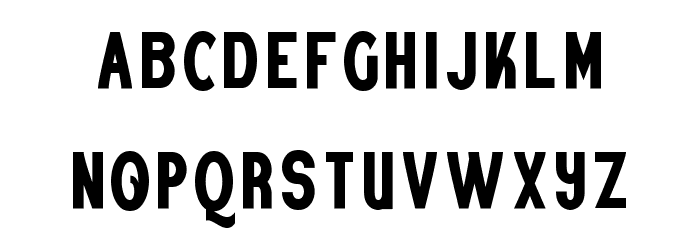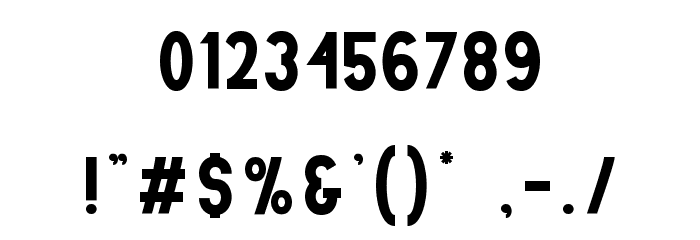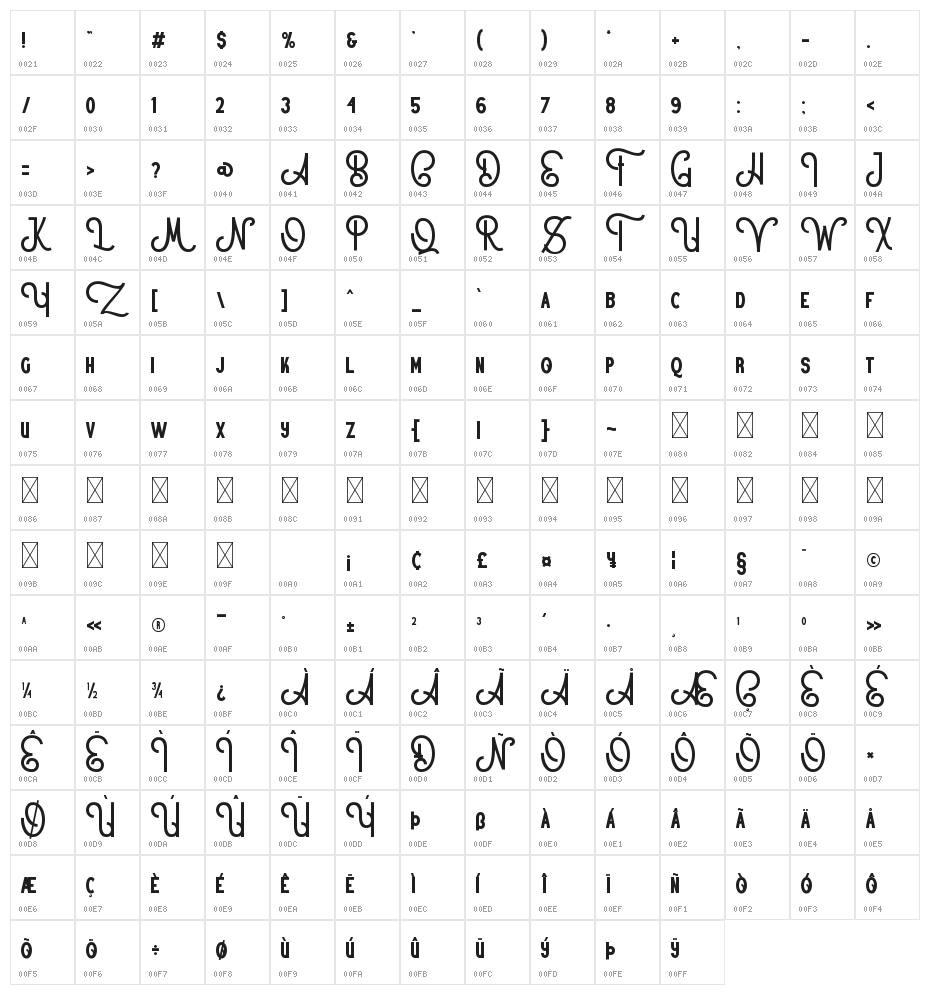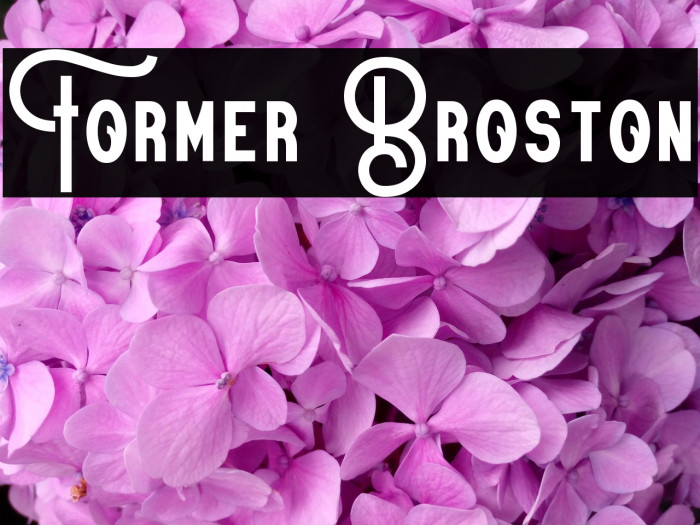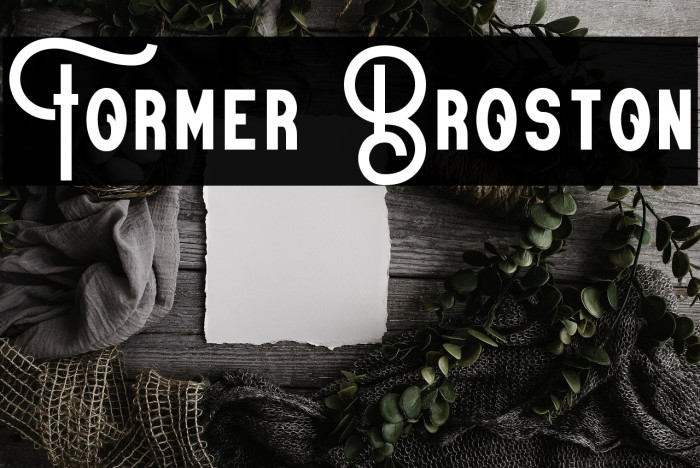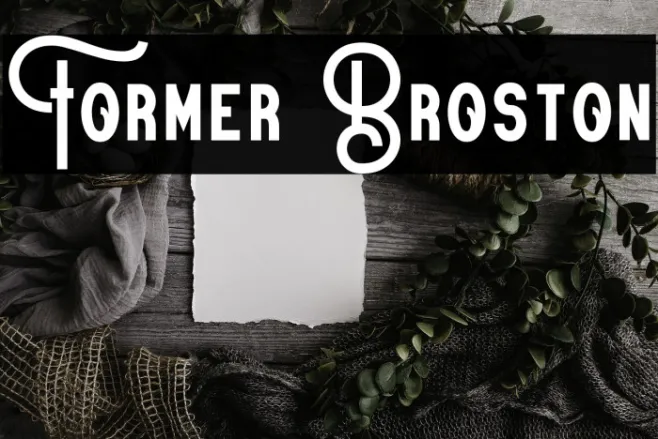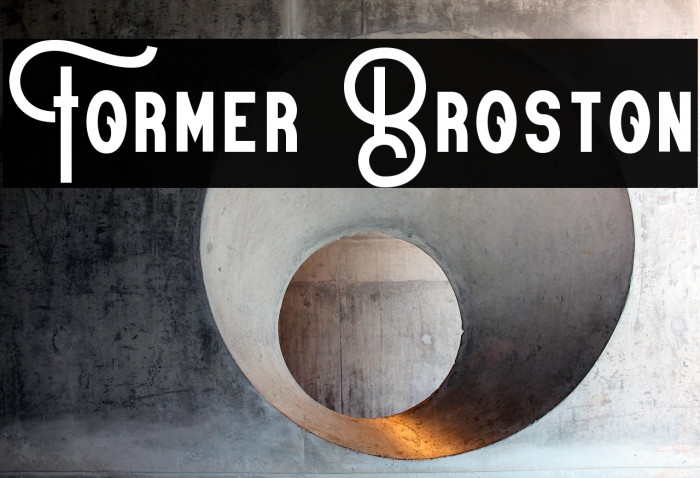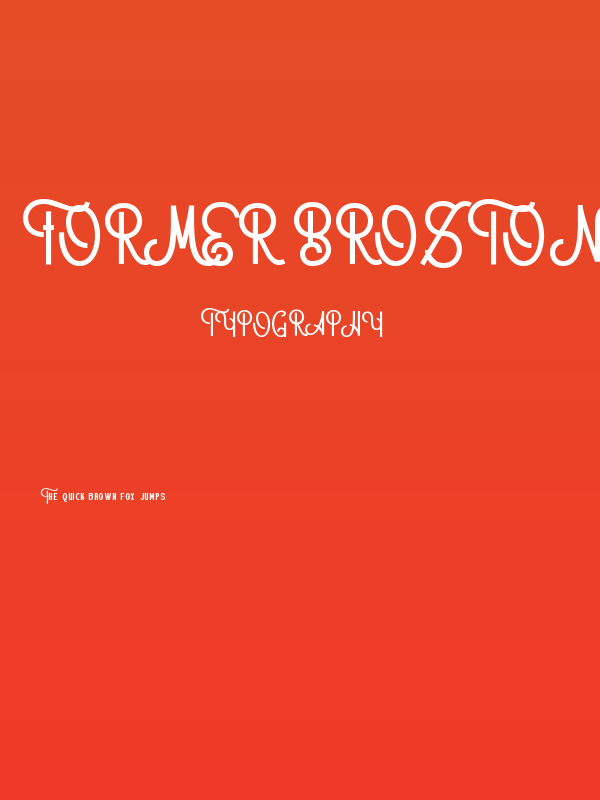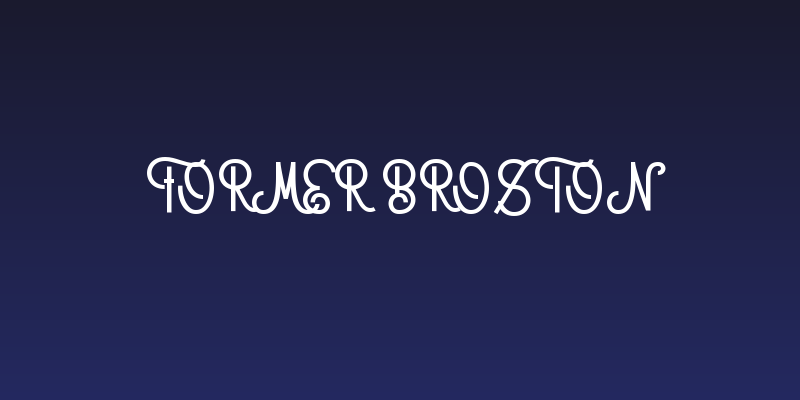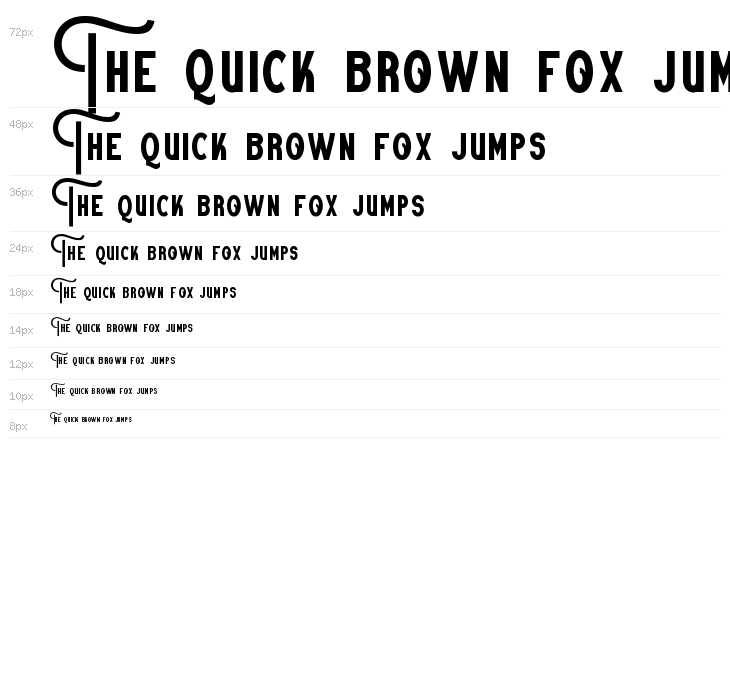
Former Broston Font
This font presents a unique blend of styles, combining decorative and bold elements. The uppercase letters feature intricate, swirling designs that add a touch of elegance and flair, making them stand out for creative projects. The lowercase letters and numbers are bold and straightforward, offering a strong, impactful presence. The special characters maintain the bold style, ensuring consistency across all elements. This font's versatility makes it suitable for various design needs, from eye-catching headlines to stylish logos.
A decorative and bold font with intricate uppercase and strong lowercase characters.
- Proposed Projects: Ideal for branding, logos, posters, and creative design projects requiring a bold statement.